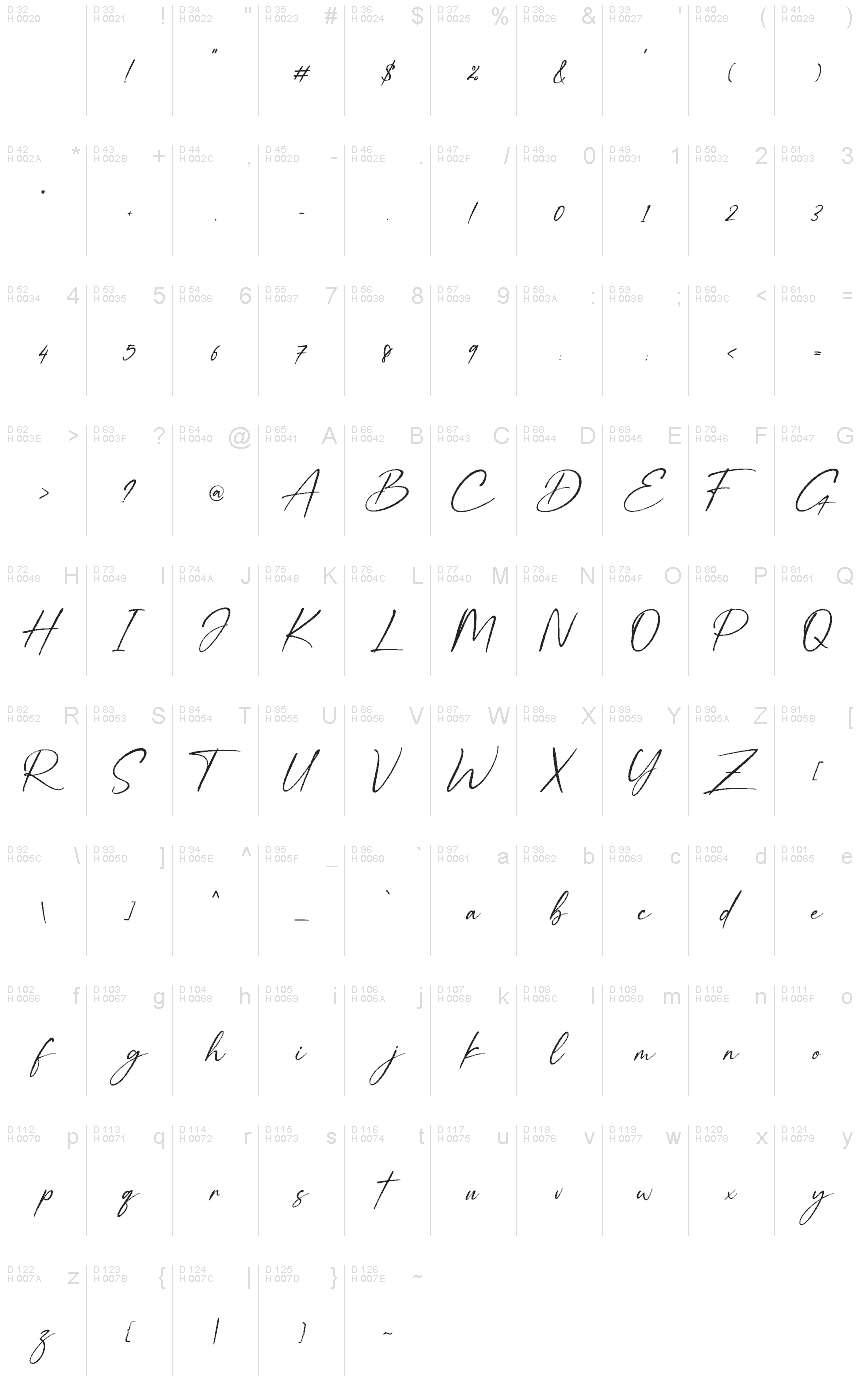
Halfmoon
Halfmoon font by Irpansyah is a light handwritten signature font with an organic flowing design, perfect for personal projects. This modern script has an expressive style created with elegance and sophistication in mind using connected beautiful characters.
Features: Lowercase Beginning & Ending Swashes, Extra Swashes & Ligatures